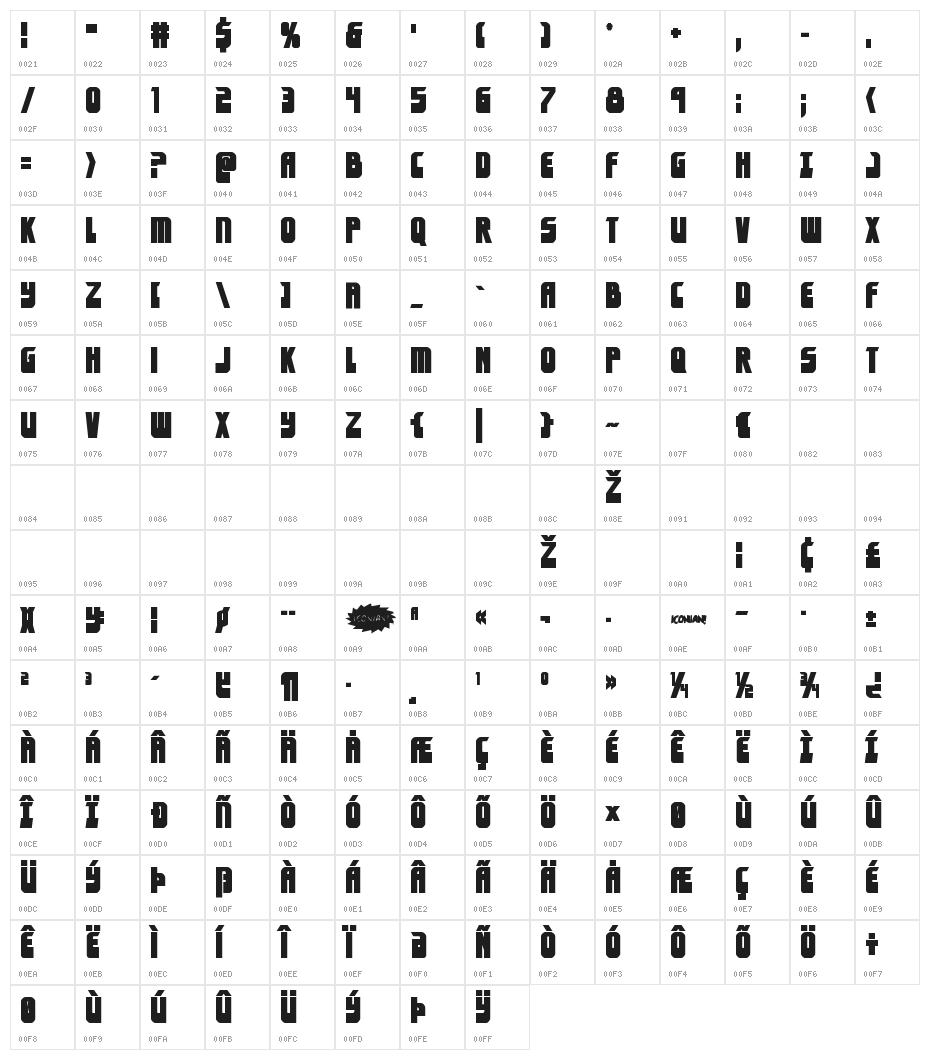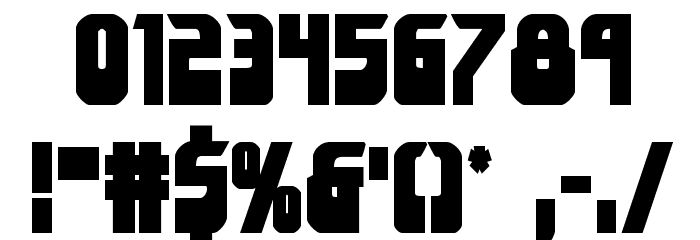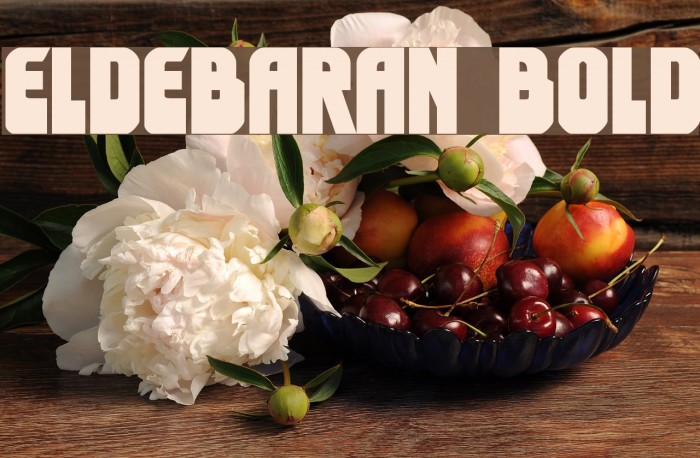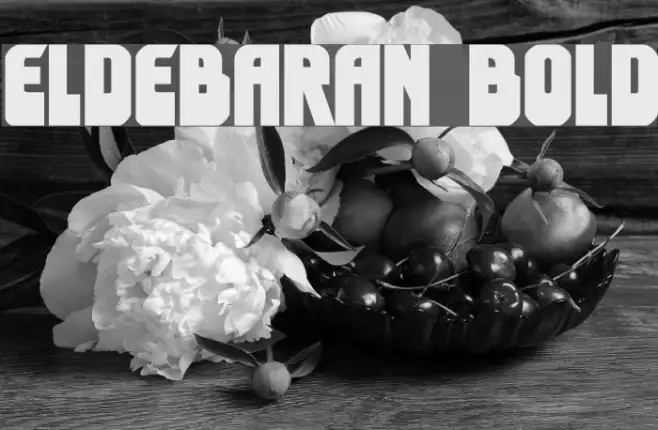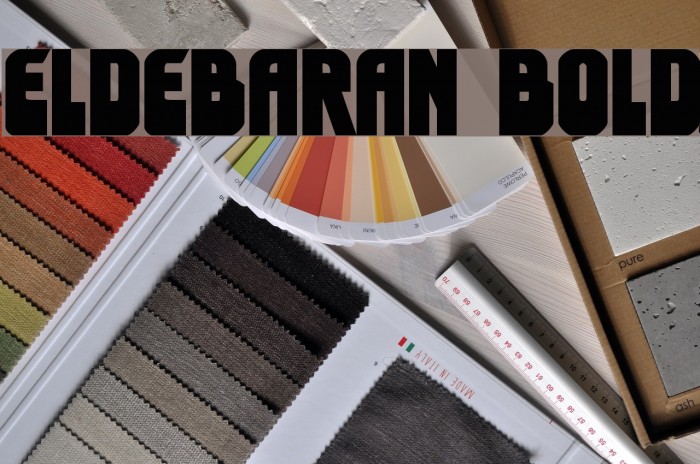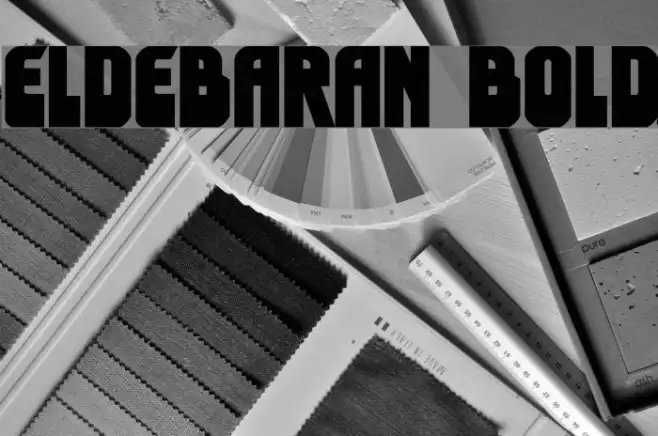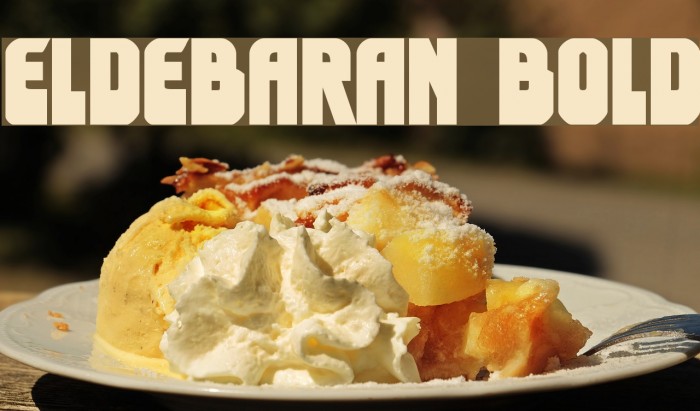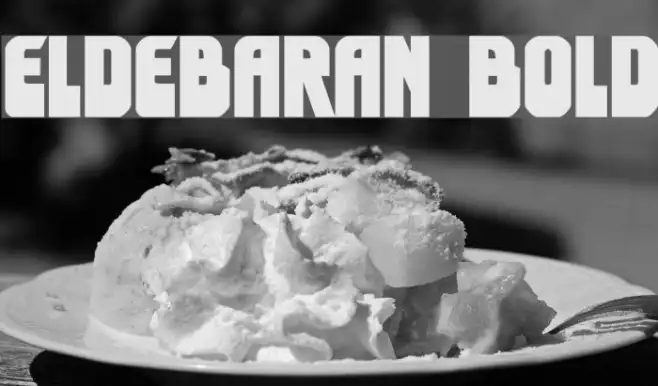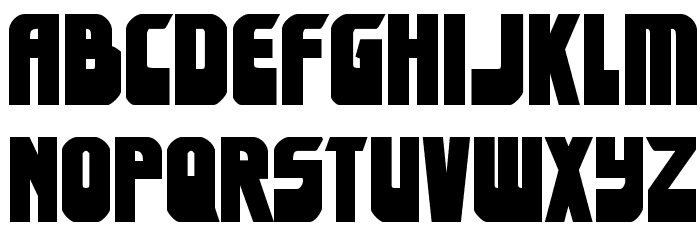
Eldebaran Bold Font
Eldebaran Bold Description
This font features a bold, geometric design with strong, angular lines and a distinct, futuristic appearance. The characters are uniformly wide, creating a cohesive and impactful visual presence. The uppercase letters are particularly striking, with a block-like structure that emphasizes stability and strength. The numbers and special characters maintain this bold aesthetic, ensuring consistency across all elements. The font's design is ideal for making a statement, with its high contrast and solid form making it suitable for attention-grabbing headlines and logos.
ELDEBARAN-BOLD UPPERCASE
ELDEBARAN-BOLD LOWERCASE
ELDEBARAN-BOLD OTHER CHARS